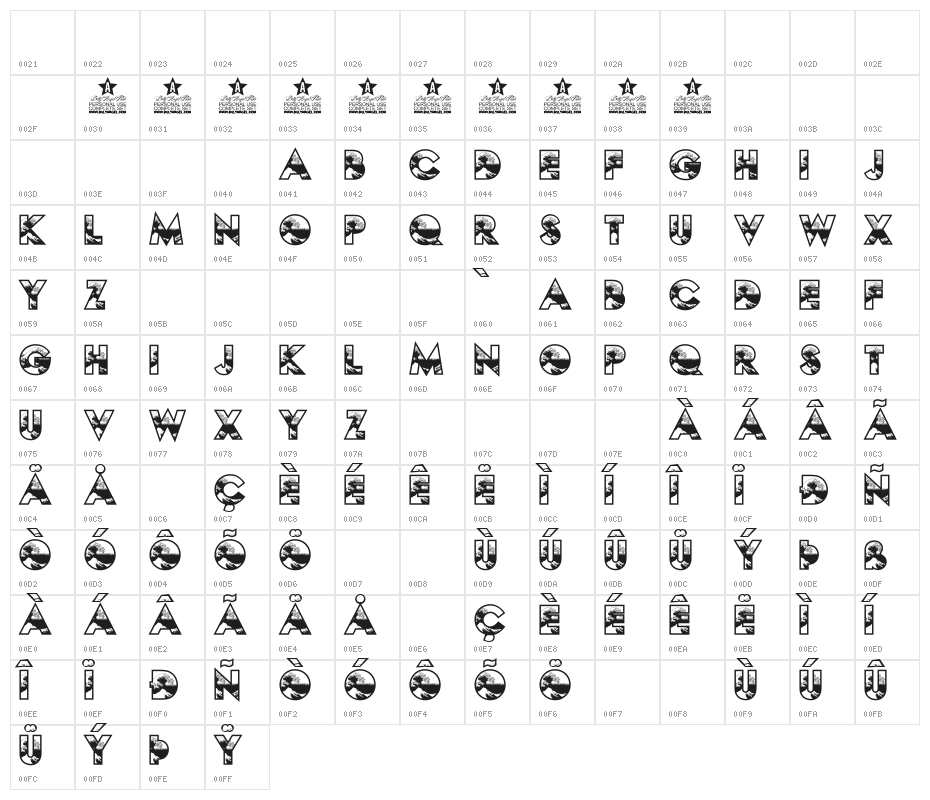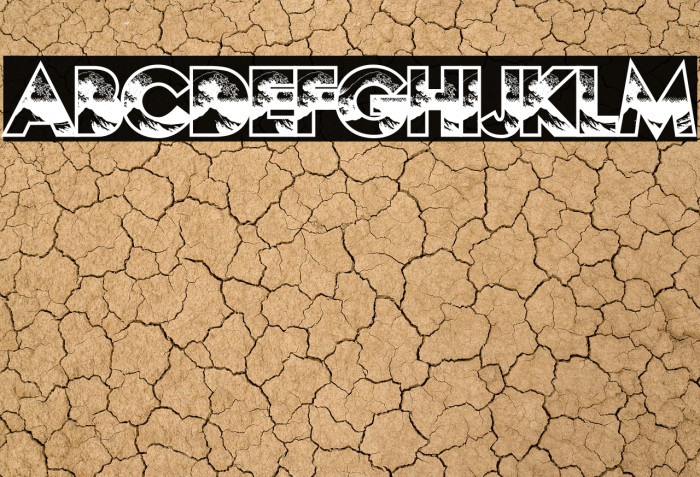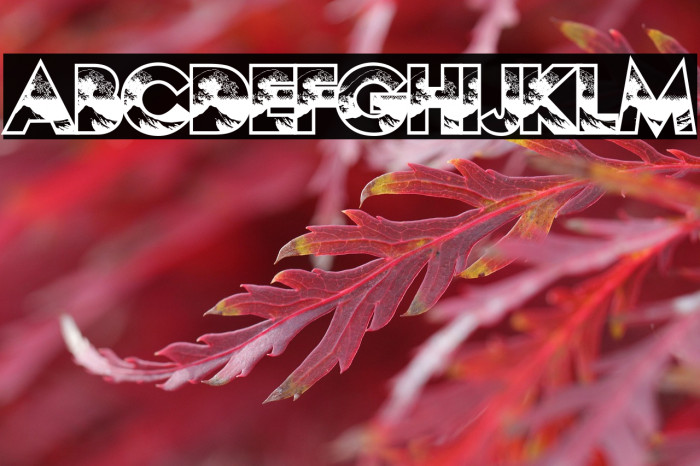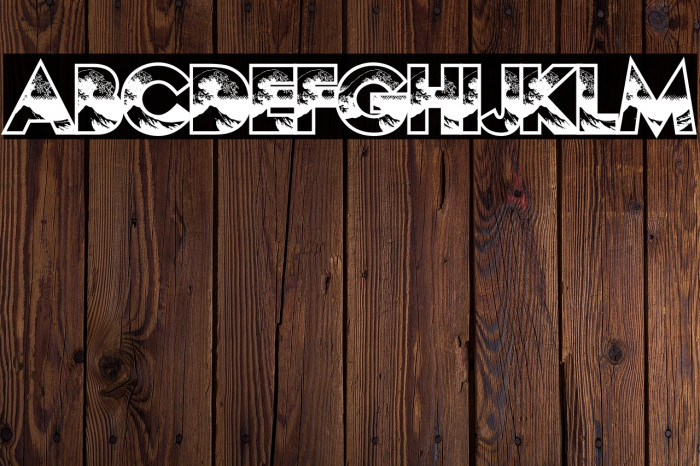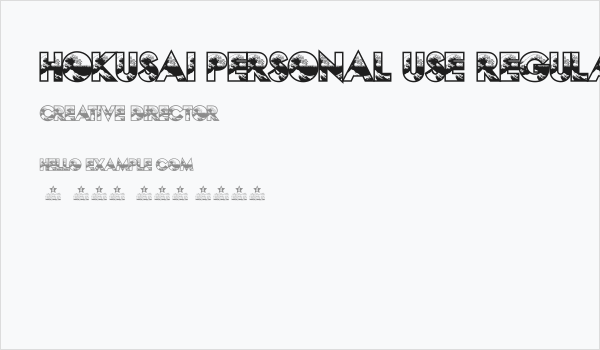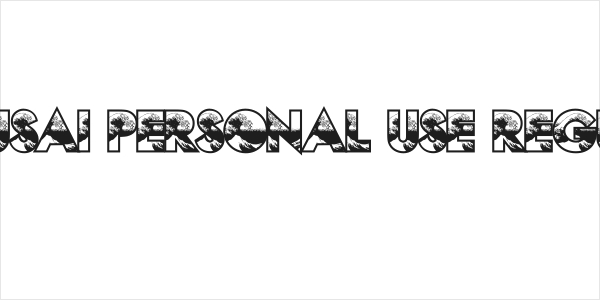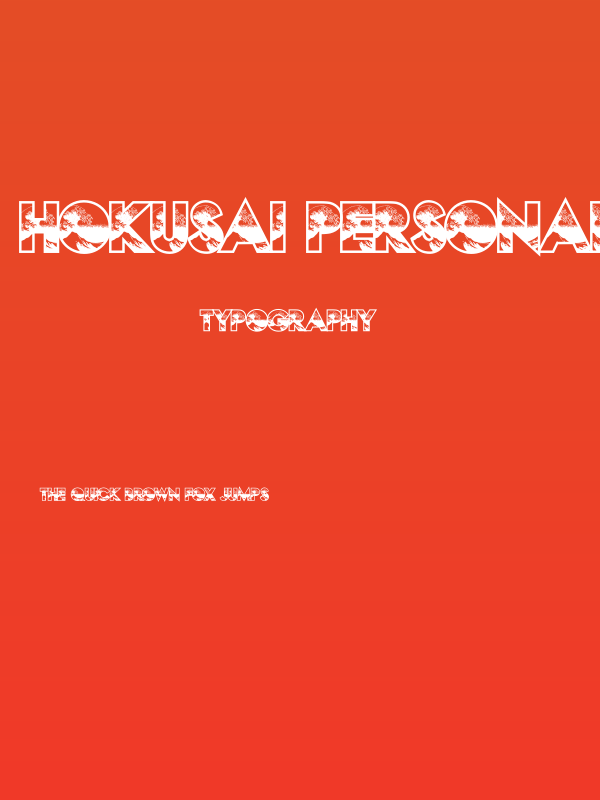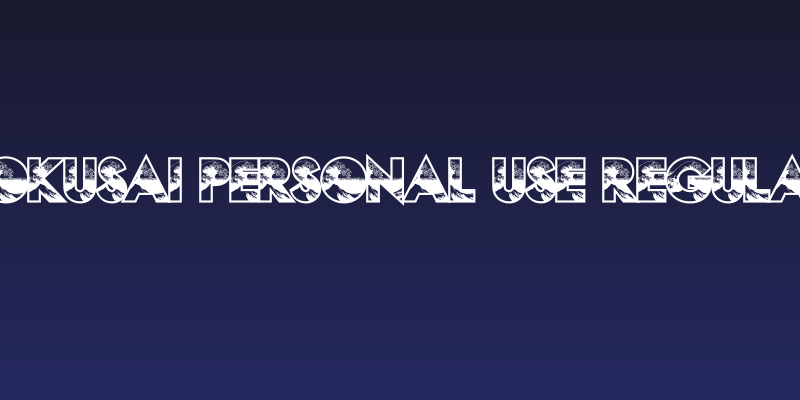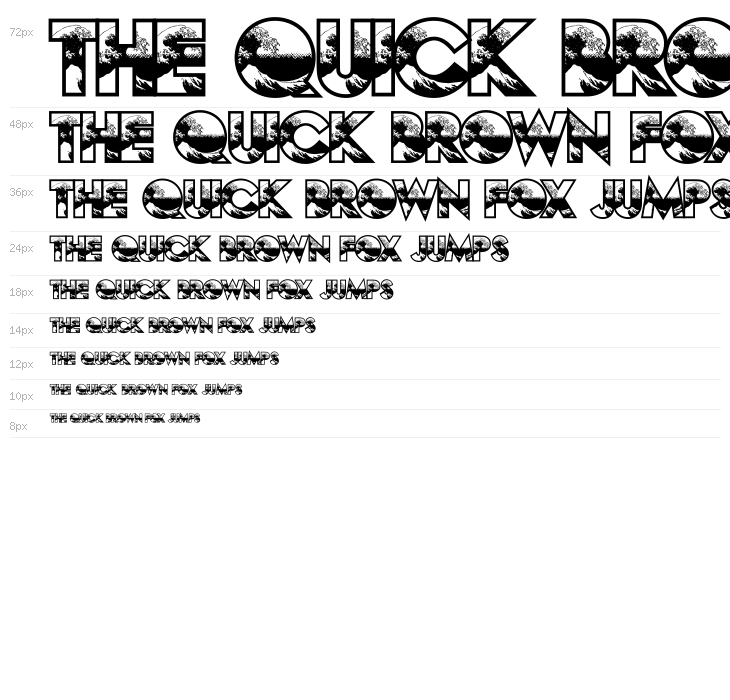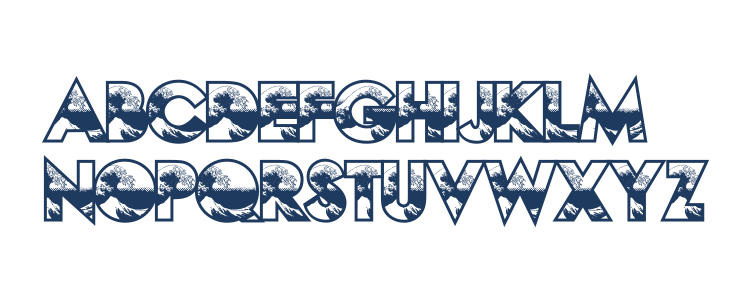
HOKUSAI PERSONAL USE Regular Font
HOKUSAI PERSONAL USE Regular Description
This font features a bold, decorative style with intricate patterns embedded within each character, reminiscent of traditional Japanese art. The letters are uppercase and have a strong, impactful presence, making them ideal for attention-grabbing designs. The intricate detailing within each letter adds a unique artistic flair, making it suitable for creative projects that require a touch of elegance and cultural depth. The font's design is both modern and classic, blending contemporary aesthetics with traditional influences.
| Proposed Projects | Ideal for posters, album covers, branding projects, and any design requiring a bold, artistic statement. |